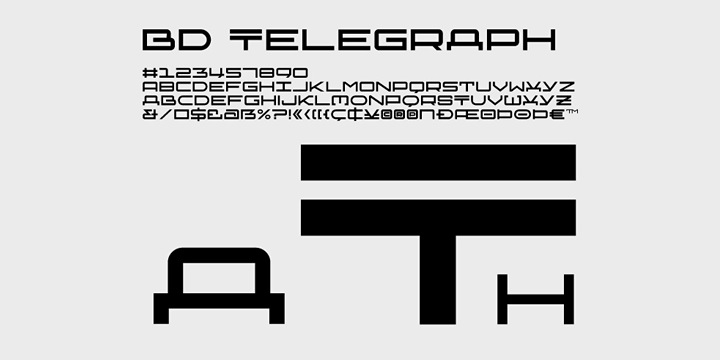
• BD Telegraph™
BD Telegraph is a heavy uppercase titling font with various alternatives and an architectural approach, great for logotype creation and titling.